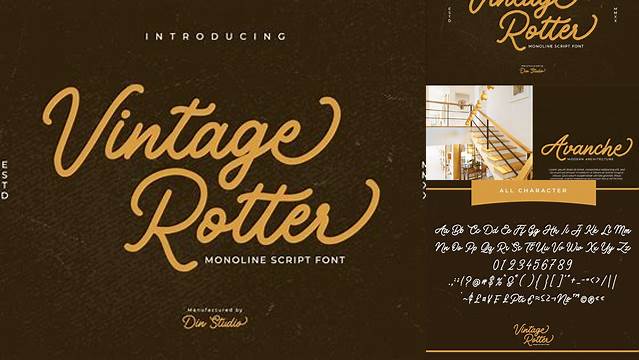
Free Vintage Rotter Font: Download Now!
Hey guys! Are you on the hunt for that perfect vintage font to give your designs a classic, timeless feel? Look no further! We're diving deep into the world of the Free Vintage Rotter Font, exploring everything from its unique characteristics to how you can use it to elevate your projects. This font is a real gem, and we're stoked to share all the details with you. Let's jump right in and discover what makes this font so special and how you can get your hands on it. We'll cover everything from its origins to practical tips for using it in your designs. So, buckle up and get ready to explore the amazing world of vintage typography!
1. What is Free Vintage Rotter Font?
So, what exactly is the Free Vintage Rotter Font? Well, imagine a typeface that perfectly captures the essence of a bygone era, blending classic letterforms with a touch of modern flair. That's Vintage Rotter in a nutshell! This font family exudes character and charm, making it an ideal choice for projects that demand a retro or vintage aesthetic. Whether you're working on branding for a coffee shop, designing a poster for a jazz festival, or crafting a unique logo, Vintage Rotter can add that extra layer of authenticity and visual appeal. The beauty of this font lies in its versatility – it works equally well for headlines and body text, offering a cohesive and polished look. But beyond its aesthetic appeal, understanding its historical context and design inspirations can truly unlock its potential. This font isn’t just about looking old; it's about telling a story. The curves, the serifs, the overall weight – everything contributes to a narrative that resonates with viewers. Think about the feeling you want to evoke, and then consider how Vintage Rotter can help you achieve that. From the bold strokes to the delicate details, every aspect of this font has been carefully crafted to create a typeface that is both visually stunning and highly functional. So, let’s explore some of the key characteristics that make Vintage Rotter stand out from the crowd.
2. Key Characteristics of Vintage Rotter
The charm of the Free Vintage Rotter Font lies in its distinct characteristics, which set it apart from other typefaces. Think of it as the unique personality that makes this font so memorable. One of the first things you'll notice is its strong, bold strokes, giving it a sense of authority and presence. This makes it ideal for headlines and titles that need to grab attention. At the same time, it incorporates elegant curves and serifs that add a touch of sophistication and refinement. This blend of strength and elegance is what gives Vintage Rotter its distinctive character. The letterforms are carefully crafted, with a consistent weight and spacing that ensures readability, even at smaller sizes. This is crucial for body text, where clarity is paramount. The font also boasts a wide range of glyphs, including alternates and ligatures, allowing you to create unique and customized typography. This versatility means you can use Vintage Rotter in a variety of contexts, from print to digital, without sacrificing its aesthetic appeal. The attention to detail is evident in every character, from the uppercase letters to the lowercase, and even the numerals and punctuation marks. This level of craftsmanship is what elevates Vintage Rotter from a simple font to a true work of art. By understanding these key characteristics, you can better appreciate the nuances of the font and use it effectively in your design projects.
4. Creative Uses for Vintage Rotter in Design
Now for the fun part! Let's talk about the creative ways you can use the Free Vintage Rotter Font in your design projects. This font is incredibly versatile, lending itself to a wide range of applications. Think branding, web design, print materials, and more. For branding, Vintage Rotter can add a touch of classic elegance to logos, business cards, and packaging. Imagine a coffee shop with a vintage-inspired logo featuring this font – it instantly conveys a sense of tradition and quality. In web design, you can use Vintage Rotter for headings, subheadings, and even body text (though it's best to use it sparingly for longer paragraphs). It's perfect for creating a retro-themed website or adding a vintage touch to a modern design. Print materials are another area where Vintage Rotter shines. Think posters, flyers, brochures, and invitations. It's particularly well-suited for designs that evoke a sense of nostalgia or history. For example, it would be perfect for a vintage travel poster or an invitation to a Gatsby-themed party. The key to using Vintage Rotter effectively is to consider the overall aesthetic you're trying to achieve. It pairs well with other vintage elements, such as distressed textures, muted colors, and classic illustrations. But it can also be used in unexpected ways to create a unique and contemporary look. Don't be afraid to experiment and see what works best for your project. And if you're feeling stuck, let’s dive deeper into specific examples of how Vintage Rotter can enhance various design projects.
5. Vintage Rotter for Logo Design
When it comes to logo design, the Free Vintage Rotter Font can be a game-changer. A logo is the face of a brand, and choosing the right typeface is crucial for conveying the brand's personality and values. Vintage Rotter's classic yet distinctive style makes it an excellent choice for businesses that want to project a sense of history, tradition, or craftsmanship. Imagine a logo for a vintage clothing store, a barbershop, or a distillery – Vintage Rotter would be right at home. Its bold strokes and elegant serifs command attention, while its overall character adds a touch of sophistication. The font's versatility also allows for creative customization. You can adjust the letter spacing, size, and color to achieve the desired effect. You can also combine it with other graphic elements, such as icons or illustrations, to create a unique and memorable logo. One tip for using Vintage Rotter in logo design is to consider the font's weight. The regular weight is ideal for a balanced and classic look, while the bold weight can add emphasis and impact. The italic version can also be used to create a more elegant and flowing feel. Another important factor is legibility. Make sure the logo is easy to read, even at smaller sizes. This is especially important for digital applications, where the logo may be displayed on a variety of devices and screens. By carefully considering these factors, you can harness the power of Vintage Rotter to create a logo that truly represents your brand. But how does Vintage Rotter stack up against other vintage fonts? Let’s compare.
6. Comparing Vintage Rotter with Other Vintage Fonts
Okay, so the Free Vintage Rotter Font is pretty awesome, but how does it compare to other vintage fonts out there? It's a fair question! The world of vintage typography is vast and diverse, with countless typefaces vying for your attention. Understanding the nuances of different fonts can help you make the best choice for your project. Vintage fonts can range from elegant and refined to bold and rustic, each with its own unique character and history. Some popular vintage fonts include Bebas Neue, Playfair Display, and Montserrat, each offering a different aesthetic. When comparing Vintage Rotter with these fonts, several key differences emerge. Vintage Rotter stands out for its strong, bold strokes and elegant serifs, giving it a commanding yet sophisticated presence. Bebas Neue, on the other hand, is a sans-serif font with a more modern and minimalist feel. Playfair Display is a classic serif font known for its high contrast and delicate letterforms. Montserrat is a geometric sans-serif font that balances modernity with vintage charm. The best font for your project will depend on the specific aesthetic you're trying to achieve. If you're looking for a font that exudes classic elegance and strength, Vintage Rotter is an excellent choice. If you prefer a more modern or minimalist look, Bebas Neue or Montserrat might be better options. Playfair Display is ideal for projects that require a touch of sophistication and refinement. Ultimately, the best way to choose a font is to experiment and see what works best for your design. And speaking of experimenting, let’s explore some font pairings that work well with Vintage Rotter.
7. Font Pairings with Vintage Rotter
One of the secrets to great typography is choosing the right font pairings. The Free Vintage Rotter Font is a strong and distinctive typeface, so pairing it with complementary fonts can create a harmonious and visually appealing design. The goal is to find fonts that balance Vintage Rotter's bold personality without overpowering it. A classic approach is to pair Vintage Rotter with a clean and simple sans-serif font. This creates a contrast that is both visually interesting and highly readable. Think of pairing Vintage Rotter for headings with a font like Open Sans or Lato for body text. This combination offers a balance between vintage charm and modern clarity. Another option is to pair Vintage Rotter with a more delicate serif font. This can create a sense of elegance and sophistication. For example, pairing Vintage Rotter with a font like Garamond or Times New Roman can be a great choice for formal designs. When choosing font pairings, it's important to consider the overall tone and style of your project. If you're aiming for a vintage look, pairing Vintage Rotter with other vintage-inspired fonts can work well. However, it's important to avoid using too many decorative fonts, as this can make your design look cluttered and overwhelming. A good rule of thumb is to stick to two or three fonts in total. Experiment with different combinations and see what resonates with you. Ultimately, the best font pairing is the one that enhances your design and communicates your message effectively. But how do you actually install Vintage Rotter on your computer? Let's find out.
9. Common Mistakes to Avoid When Using Vintage Fonts
Vintage fonts, like the Free Vintage Rotter Font, can add a ton of character and charm to your designs, but they can also be tricky to use effectively. There are some common pitfalls to watch out for to ensure your designs look polished and professional. One of the biggest mistakes is overusing vintage fonts. While they're great for adding a touch of nostalgia, using too many vintage fonts in a single design can create a cluttered and overwhelming look. It's usually best to stick to one or two vintage fonts and pair them with simpler, more modern typefaces. Another common mistake is using vintage fonts in inappropriate contexts. Vintage fonts are not suitable for every project. They work well for designs that evoke a sense of history or tradition, but they may not be the best choice for modern or minimalist designs. It's important to consider the overall tone and style of your project and choose fonts that align with that aesthetic. Legibility is another crucial factor. Some vintage fonts can be difficult to read, especially at smaller sizes. Make sure your text is clear and legible, even if it means choosing a simpler font or adjusting the font size and spacing. Kerning and tracking are also important. Vintage fonts often have unique letterforms and spacing, so it's essential to adjust the kerning and tracking to ensure the text looks balanced and harmonious. And of course, always double-check the font's license before using it in a commercial project. Now that you know what mistakes to avoid, let’s explore some real-world examples of Vintage Rotter in action.
10. Real-World Examples of Vintage Rotter in Action
To truly appreciate the power of the Free Vintage Rotter Font, let's take a look at some real-world examples of how it's being used in design. Seeing the font in context can inspire you and give you a better understanding of its potential. One common application is in branding for businesses that want to project a vintage or handcrafted feel. Think coffee shops, breweries, barbershops, and artisan goods stores. Vintage Rotter can add a touch of classic elegance to logos, packaging, and marketing materials. Another popular use is in event posters and invitations. Vintage Rotter is perfect for designs that evoke a sense of nostalgia or retro charm. It can be used for posters for jazz festivals, vintage markets, or themed parties. Web design is another area where Vintage Rotter can shine. It can be used for headings, subheadings, and even body text (though sparingly) to create a unique and memorable online experience. Many websites use Vintage Rotter to add a touch of personality and character to their designs. Book covers and album art are also great examples of how Vintage Rotter can be used effectively. Its bold and distinctive style can help a cover stand out on a shelf or in an online store. The key to using Vintage Rotter successfully is to consider the overall design and the message you're trying to convey. It's not just about using a vintage font; it's about using it in a way that enhances the design and communicates your brand's personality. Let’s now consider if Vintage Rotter is the right choice for your project.
11. Is Vintage Rotter the Right Choice for Your Project?
Okay, you've learned a lot about the Free Vintage Rotter Font, but the big question remains: is it the right choice for your project? Choosing the right font is crucial for effective design, and it's important to consider several factors before making a decision. First, think about the overall tone and style of your project. Is it vintage-inspired, modern, elegant, or playful? Vintage Rotter is a strong choice for projects that evoke a sense of history, tradition, or craftsmanship. If you're aiming for a modern or minimalist look, it might not be the best fit. Consider your target audience. Who are you trying to reach with your design? Different fonts appeal to different audiences. Vintage Rotter might be a great choice for targeting a mature audience or those who appreciate classic design. Think about the context in which the font will be used. Will it be used for a logo, a website, a poster, or something else? Vintage Rotter is versatile, but it's not suitable for every application. It works well for headlines and titles, but it might be too decorative for long blocks of body text. Legibility is also a key consideration. Make sure the font is easy to read, especially at smaller sizes. While Vintage Rotter is generally legible, it's important to test it in different contexts to ensure it's clear and readable. Ultimately, the best way to decide if Vintage Rotter is right for your project is to experiment and see how it looks. Try it out in different designs and see if it aligns with your vision. But what if you need to customize Vintage Rotter? Let's explore that next.
12. Customizing Vintage Rotter Font
The Free Vintage Rotter Font is beautiful as it is, but sometimes you might want to tweak it to perfectly match your design. Customizing a font can add a unique touch and help your project stand out. There are several ways to customize Vintage Rotter, from simple adjustments to more complex modifications. One of the easiest ways to customize a font is to adjust the letter spacing, also known as tracking. Increasing the letter spacing can create a more airy and elegant feel, while decreasing it can add a sense of density and impact. Kerning, which is the space between individual letters, is another important adjustment. Fine-tuning the kerning can improve the overall readability and visual harmony of the text. You can also adjust the font size to create different effects. Larger sizes are ideal for headlines and titles, while smaller sizes are better suited for body text. The font color is another crucial element. Experiment with different colors to see what works best with your design. You can also use gradients or textures to add depth and visual interest. For more advanced customization, you can use font editing software like FontForge or Glyphs. These tools allow you to modify the letterforms themselves, adding unique flourishes or altering the overall shape. However, font editing can be complex, so it's best to have some experience with typography before attempting it. Remember, the goal of customization is to enhance the font's character and make it your own, while still maintaining its legibility and overall aesthetic appeal. Now, let’s address some frequently asked questions about Vintage Rotter.
13. Frequently Asked Questions About Vintage Rotter
Got questions about the Free Vintage Rotter Font? You're not alone! Here are some frequently asked questions to help you better understand this fantastic typeface. Is Vintage Rotter free for commercial use? This is a crucial question, and the answer depends on the specific license agreement. Always check the license before using a font in a commercial project to ensure you're complying with the terms. Some fonts are free for personal use only, while others can be used for commercial projects as well. What file format is Vintage Rotter available in? Most fonts, including Vintage Rotter, are available in either .TTF (TrueType Font) or .OTF (OpenType Font) format. Both formats are widely supported, but OTF is generally considered to be the more advanced format, offering better support for ligatures and other typographic features. How do I install Vintage Rotter on my computer? The installation process is usually straightforward. On Windows, right-click the font file and select "Install." On macOS, double-click the font file and click "Install Font" in Font Book. Can I use Vintage Rotter on my website? Yes, you can use Vintage Rotter on your website, but you'll need to use a web font format, such as .WOFF or .WOFF2. You can generate web fonts using online tools or font editing software. What fonts pair well with Vintage Rotter? Vintage Rotter pairs well with clean sans-serif fonts like Open Sans or Lato, as well as more delicate serif fonts like Garamond or Times New Roman. If you have more questions, don’t hesitate to search online or consult a typography expert. Next up, we’ll discuss the history of vintage fonts.
14. The History of Vintage Fonts
To truly appreciate the Free Vintage Rotter Font, it's helpful to understand the history of vintage fonts in general. Vintage fonts aren't just a stylistic choice; they're a connection to the past, each with its own story to tell. The history of typography is long and fascinating, dating back to the invention of movable type in the 15th century. Early typefaces were based on the handwriting styles of the time, and many of these classic designs continue to influence font design today. The 19th and 20th centuries saw a proliferation of new typefaces, driven by advances in printing technology and the rise of advertising. Many of these fonts, such as Art Deco and Art Nouveau styles, are now considered vintage classics. The digital age has brought about a resurgence of interest in vintage fonts. Designers are drawn to their unique character and charm, and they're often used to evoke a sense of nostalgia or authenticity. Vintage fonts can be broadly categorized into several styles, including serif, sans-serif, script, and decorative. Serif fonts, with their small decorative strokes, are often associated with tradition and formality. Sans-serif fonts, which lack serifs, tend to have a more modern and minimalist feel. Script fonts mimic handwriting and can add a touch of elegance or personality. Decorative fonts are more elaborate and are often used for headlines and display purposes. Understanding the history of vintage fonts can help you choose the right typeface for your project and use it effectively. Now, let's explore the technical specifications of Vintage Rotter.
15. Technical Specifications of Vintage Rotter
For the tech-savvy designers out there, let's dive into the technical specifications of the Free Vintage Rotter Font. Understanding these details can help you ensure the font works seamlessly in your projects. Vintage Rotter is typically available in two main file formats: .TTF (TrueType Font) and .OTF (OpenType Font). Both formats are widely supported, but OTF is generally preferred for its advanced features. OTF fonts can contain more glyphs (characters) than TTF fonts, including ligatures, alternates, and other special characters. This gives designers more flexibility and control over their typography. Vintage Rotter usually includes a full character set, including uppercase and lowercase letters, numerals, punctuation marks, and symbols. It may also include ligatures, which are combinations of two or more letters that are designed as a single glyph. Ligatures can add a touch of elegance and sophistication to your typography. The font's weight refers to the thickness of the strokes. Vintage Rotter may be available in different weights, such as regular, bold, and italic. Choosing the right weight is important for ensuring readability and creating visual hierarchy. Kerning and tracking, which we discussed earlier, are also important technical considerations. Vintage Rotter may have specific kerning pairs built in, but you can also adjust the kerning manually in your design software. If you're using Vintage Rotter on the web, you'll need to use a web font format, such as .WOFF or .WOFF2. These formats are optimized for web use and can help improve page loading times. Knowing these technical details allows you to use Vintage Rotter with confidence and precision. Let's now look into the licensing details for Vintage Rotter.
16. Licensing Details for Free Vintage Rotter
One of the most important aspects to consider when using any font, including the Free Vintage Rotter Font, is its licensing. Understanding the licensing terms is crucial to ensure you're using the font legally and ethically. Font licenses dictate how you can use a font, including whether you can use it for personal or commercial projects, and whether you can modify or redistribute it. Some fonts are released under open-source licenses, such as the SIL Open Font License (OFL), which allows for free use, modification, and distribution. Other fonts have more restrictive licenses that limit how they can be used. Before using Vintage Rotter in any project, it's essential to carefully review the license agreement. This will typically be included in a text file within the font's download package. Pay close attention to the terms regarding commercial use, embedding in documents or applications, and modification and redistribution. If the license is unclear or you have specific questions, it's always best to contact the font's designer or distributor for clarification. Using a font without the proper license can have legal and financial consequences, so it's always better to be safe than sorry. Many websites that offer free fonts clearly state the license terms on the download page. Look for terms like "free for personal use" or "free for commercial use." If you're unsure, err on the side of caution and choose a font with a clear and permissive license. Now that we’ve covered licensing, let’s talk about font management tools.
17. Font Management Tools for Vintage Rotter
If you're a designer who works with a lot of fonts, like the Free Vintage Rotter Font, you know how quickly things can get disorganized. Font management tools are essential for keeping your fonts organized, accessible, and performing optimally. These tools help you install, activate, deactivate, and categorize your fonts. They can also help you identify and resolve font conflicts, which can cause problems in your design software. There are several font management tools available, both free and paid. Some popular options include FontBase, NexusFont, and RightFont. These tools offer a range of features, such as font preview, tagging, and search. They can also integrate with your design applications, making it easy to access your fonts directly from within Photoshop, Illustrator, or InDesign. Using a font management tool can save you time and frustration by making it easier to find the fonts you need and prevent font-related issues. For example, you can create collections of fonts for specific projects or clients. You can also tag fonts with keywords to make them easier to search. If you're using Vintage Rotter in multiple projects, a font management tool can help you ensure that it's always available when you need it. Some font management tools also offer features for cleaning up your font library, such as identifying and removing duplicate fonts. This can help improve your system's performance and prevent font conflicts. With a good font management system in place, you'll be able to focus on your creativity, not your fonts. Next, let's discuss the best software to use with Vintage Rotter.
18. Best Software to Use with Vintage Rotter
The Free Vintage Rotter Font is a versatile typeface, but to truly unleash its potential, you need the right software. The software you use can significantly impact how you work with fonts and the final look of your designs. For professional graphic design, Adobe Creative Suite is the industry standard. Programs like Photoshop, Illustrator, and InDesign offer robust font handling capabilities and a wide range of typographic controls. In Illustrator, you can easily adjust kerning, tracking, and leading, as well as create outlines from text for custom modifications. Photoshop is great for incorporating Vintage Rotter into raster-based designs, such as posters and photo manipulations. InDesign is the go-to choice for layout design, allowing you to create multi-page documents with consistent typography. If you're on a budget, there are also some excellent free and open-source alternatives. GIMP is a powerful image editing program that can handle Vintage Rotter effectively. Inkscape is a vector graphics editor that is similar to Illustrator and offers good font support. Scribus is a desktop publishing application that can be used as an alternative to InDesign. For web design, you'll need software that supports web fonts. Most modern web design tools, such as Adobe XD, Figma, and Sketch, allow you to use custom fonts, including Vintage Rotter. You can also use CSS to specify the font for your website. The best software for you will depend on your specific needs and budget. But with the right tools, you can bring your typographic visions to life with Vintage Rotter. Let's explore how Vintage Rotter can be used in branding next.
19. Using Vintage Rotter for Branding
Branding is all about creating a unique and memorable identity, and the Free Vintage Rotter Font can be a powerful tool in achieving that. Choosing the right font for your brand is crucial, as it can convey your brand's personality, values, and overall message. Vintage Rotter, with its classic and elegant style, is a great choice for brands that want to project a sense of history, tradition, or craftsmanship. It works particularly well for businesses in industries like food and beverage, fashion, and hospitality. Imagine a logo for a vintage-inspired coffee shop using Vintage Rotter – it instantly conveys a sense of warmth and authenticity. Or a fashion brand that wants to evoke a sense of timeless style could use Vintage Rotter for its logo and marketing materials. When using Vintage Rotter for branding, it's important to consider the font's weight, size, and color. The font weight can affect the perceived strength and stability of the brand. A bold weight can convey confidence, while a lighter weight can suggest elegance and refinement. The font size should be chosen carefully to ensure legibility and visual impact. The font color should align with the brand's overall color palette and evoke the desired emotions. It’s also important to maintain consistency across all branding materials. Using Vintage Rotter consistently in your logo, website, packaging, and marketing materials will help reinforce your brand identity. Keep in mind that branding is more than just a font choice. It's about creating a cohesive and compelling story that resonates with your target audience. But Vintage Rotter can be a valuable asset in telling that story. We’ll now explore how this font can be used for web design.
20. Vintage Rotter in Web Design
In the world of web design, typography plays a vital role in user experience and visual appeal. The Free Vintage Rotter Font can add a touch of character and sophistication to your website, but it's important to use it strategically. Vintage fonts can create a unique and memorable online experience, but they should be used judiciously to ensure readability and maintain a modern feel. Vintage Rotter is well-suited for headings and subheadings, where its distinctive style can grab attention. It can also be used for shorter blocks of text, such as call-to-actions or testimonials. However, using Vintage Rotter for long paragraphs of body text can be tiring for the eyes. It's best to pair it with a cleaner, more legible font for body copy. When using Vintage Rotter on the web, you'll need to use a web font format, such as .WOFF or .WOFF2. These formats are optimized for web use and can help improve page loading times. You can use CSS to specify the font for different elements on your website. It's important to test the font on different devices and browsers to ensure it renders correctly. Consider the contrast between the text and background colors. Ensure there is sufficient contrast to make the text easy to read. You can also use CSS to control the letter spacing, line height, and other typographic properties. Remember, the goal is to create a website that is both visually appealing and user-friendly. Vintage Rotter can be a valuable asset in achieving that goal, but it should be used in a way that enhances the overall design and user experience. Let's move on to how Vintage Rotter can be used in print design.
21. Vintage Rotter in Print Design
While digital design is booming, print design still holds a special place, and the Free Vintage Rotter Font can truly shine in printed materials. From posters to brochures to business cards, Vintage Rotter can add a touch of elegance and timelessness to your print projects. In print design, typography is even more critical as it directly impacts the physical reading experience. Vintage Rotter, with its distinctive character, can make your printed materials stand out. It is particularly effective in projects where you want to convey a sense of history, craftsmanship, or classic style. For posters and flyers, Vintage Rotter can be used for headlines, titles, and other prominent text elements. Its bold and elegant style commands attention and creates a visual impact. For brochures and booklets, Vintage Rotter can be used for headings and subheadings, as well as for captions and call-outs. Pairing it with a cleaner font for body text can ensure readability and a balanced aesthetic. Business cards are another area where Vintage Rotter can make a statement. Using it for your name, title, or company name can add a touch of sophistication and memorability. When using Vintage Rotter in print design, it's essential to consider the paper stock, printing method, and ink colors. A high-quality paper stock can enhance the font's appearance, while the right printing method can ensure sharpness and clarity. The ink colors should complement the font and the overall design. Whether you’re creating invitations, menus, or packaging, Vintage Rotter can bring a unique and classic touch to your print projects. Now, let’s dive into using Vintage Rotter in packaging design.
22. Using Vintage Rotter in Packaging Design
Packaging is a crucial aspect of branding and marketing, and the Free Vintage Rotter Font can be a game-changer in creating visually appealing and memorable packaging designs. The right typography on your packaging can attract attention, communicate your brand message, and influence purchasing decisions. Vintage Rotter, with its classic and elegant style, is an excellent choice for brands that want to convey a sense of quality, tradition, or craftsmanship. It is particularly well-suited for products in industries like food and beverage, cosmetics, and artisanal goods. Imagine a bottle of craft beer with a label featuring Vintage Rotter – it instantly suggests a high-quality, handcrafted product. Or a box of artisanal chocolates with Vintage Rotter on the packaging conveys a sense of luxury and indulgence. When using Vintage Rotter in packaging design, it’s crucial to consider the size and shape of the packaging, as well as the materials used. The font should be legible and visually appealing on the chosen packaging. Think about the layout and hierarchy of the text. Use Vintage Rotter for key elements like the product name or brand name, and pair it with a cleaner font for other information. The colors and textures used in the packaging should complement the font and reinforce the brand's identity. Vintage Rotter can add a touch of sophistication and uniqueness to your product packaging, helping it stand out on the shelf and appeal to your target audience. We’ll now explore using Vintage Rotter for event invitations and posters.
23. Vintage Rotter for Event Invitations and Posters
When it comes to event invitations and posters, making a strong visual impression is key, and the Free Vintage Rotter Font can be your secret weapon. Whether it's a wedding invitation, a concert poster, or a vintage-themed party, the right typography can set the tone and create anticipation. Vintage Rotter, with its classic and elegant style, is perfect for events that evoke a sense of nostalgia, sophistication, or timelessness. It can add a touch of old-world charm to your invitations and posters, making them stand out and capturing attention. For wedding invitations, Vintage Rotter can be used for the names of the bride and groom, the date, and other key details. It adds a touch of romance and elegance to the design. For concert posters, Vintage Rotter can be used for the band name, the venue, and the date. Its bold and distinctive style commands attention and creates a memorable visual. For vintage-themed parties, Vintage Rotter can be used for the event title and other information. It perfectly complements the retro vibe and creates a cohesive design. When using Vintage Rotter for event invitations and posters, consider the overall design aesthetic and the message you want to convey. The font should align with the event's theme and create the desired mood. Use Vintage Rotter strategically to highlight key information and create visual hierarchy. Paired with appropriate colors, imagery, and layout, Vintage Rotter can transform your event invitations and posters into stunning works of art. Now, let's discuss using Vintage Rotter for book covers and album art.
24. Vintage Rotter for Book Covers and Album Art
In the world of books and music, the cover is often the first thing that catches a potential buyer's eye, and the Free Vintage Rotter Font can be a powerful tool in creating compelling book covers and album art. The right typography can convey the genre, mood, and overall message of the work, influencing purchasing decisions. Vintage Rotter, with its classic and elegant style, is a great choice for books and albums that evoke a sense of history, tradition, or timelessness. It adds a touch of sophistication and character to the cover design. For book covers, Vintage Rotter can be used for the title, author's name, and other key information. Its bold and distinctive style helps the cover stand out on a shelf or in an online store. The font can create the vibe of historical fiction, classic literature, or vintage-inspired genres. For album art, Vintage Rotter can be used for the band name, album title, and other text elements. It can capture the essence of various musical genres, including jazz, blues, rockabilly, and folk. When using Vintage Rotter for book covers and album art, it’s important to consider the overall design aesthetic and the target audience. The font should align with the work's genre and create the desired mood. It is essential to create visual hierarchy and enhance the overall impact of the cover design. Combined with appropriate imagery, colors, and layout, Vintage Rotter can help create captivating book covers and album art that grab attention and entice the audience. Let's move on to how Vintage Rotter works for restaurant menus and signage.
25. Vintage Rotter for Restaurant Menus and Signage
Creating the right ambiance is crucial for restaurants, and the typography on menus and signage plays a significant role. The Free Vintage Rotter Font can be an excellent choice for establishments aiming for a classic, sophisticated, or vintage feel. The right font can communicate the restaurant’s style, price point, and overall dining experience. Vintage Rotter, with its elegant and timeless design, is perfect for restaurants that want to evoke a sense of quality, tradition, or old-world charm. It can add a touch of sophistication to menus, signage, and other branding materials. For restaurant menus, Vintage Rotter can be used for headings, dish names, and descriptions. Its distinctive style makes the menu items stand out, while its elegance enhances the dining experience. For signage, Vintage Rotter can be used for the restaurant name, hours of operation, and other key information. It creates a memorable visual identity that aligns with the restaurant’s overall ambiance. When using Vintage Rotter for restaurant menus and signage, consider the legibility and readability of the font. Ensure the font size is appropriate for the viewing distance and the lighting conditions. Also, think about the overall design aesthetic and how the font complements the other elements. Vintage Rotter, paired with the right colors, textures, and layout, can help create an inviting and memorable dining atmosphere. We’ll now discuss how you can use Vintage Rotter to add a vintage touch to your photos.
26. Adding a Vintage Touch to Photos with Vintage Rotter
Photos can tell stories, and adding the Free Vintage Rotter Font can enhance the narrative, giving your images a timeless, nostalgic feel. Whether you're creating a retro-themed photo album, designing a vintage-inspired social media post, or crafting a classic poster, Vintage Rotter can add the perfect finishing touch. Typography plays a vital role in setting the mood and conveying the message of a photo. Vintage Rotter, with its classic and elegant style, is ideal for photos that evoke a sense of history, tradition, or romance. It can transform ordinary images into captivating works of art. When adding text to photos with Vintage Rotter, consider the composition, color palette, and overall aesthetic of the image. The font should complement the photo and enhance its visual appeal. Use Vintage Rotter strategically to highlight key elements or add context to the image. Experiment with different font sizes, weights, and colors to achieve the desired effect. Think about the placement of the text within the photo. Try adding a subtle drop shadow or other effects to make the text stand out without overpowering the image. Consider using Vintage Rotter for captions, quotes, or titles to add a personal touch to your photos. This font is particularly well-suited for black and white photos, sepia-toned images, or photos with a vintage filter. Whether it’s for personal use or professional projects, Vintage Rotter can help you create photos that tell compelling stories and capture the essence of a bygone era. Let’s explore how to create stunning visual quotes with Vintage Rotter.
27. Creating Stunning Visual Quotes with Vintage Rotter
Visual quotes are a powerful way to share inspiration and wisdom, and the Free Vintage Rotter Font can help you create stunning designs that capture attention and resonate with your audience. Whether you’re posting on social media, designing a greeting card, or creating wall art, the right typography can transform a simple quote into a memorable visual masterpiece. Typography is key to conveying the tone and message of a quote. Vintage Rotter, with its elegant and timeless style, is perfect for quotes that evoke a sense of history, tradition, or sophistication. It adds a touch of class and character to the design. When creating visual quotes with Vintage Rotter, consider the layout, color palette, and imagery. The font should complement the quote and enhance its impact. Think about the visual hierarchy and how the different elements work together. Use Vintage Rotter for the key words or phrases in the quote to make them stand out. Experiment with different font sizes, weights, and colors to create visual interest and emphasis. Choose a background image or texture that complements the quote and the font. Think about adding decorative elements, such as flourishes or borders, to enhance the design. Consider posting visual quotes on social media platforms such as Instagram, Pinterest, and Facebook. Remember, the goal is to create visual quotes that not only look beautiful but also convey a meaningful message. Let's discuss how to combine Vintage Rotter with other design elements.
28. Combining Vintage Rotter with Other Design Elements
The Free Vintage Rotter Font is a fantastic typeface on its own, but combining it effectively with other design elements can truly elevate your projects. From colors and imagery to textures and layouts, the right combinations can create a cohesive and visually stunning design. The key is to strike a balance and ensure that all elements work together harmoniously. Colors play a crucial role in setting the mood and conveying the message of your design. Vintage Rotter pairs well with a variety of color palettes, from muted and earthy tones to rich and vibrant hues. Consider the overall aesthetic you want to achieve and choose colors that complement the font and the design concept. Imagery, such as photos and illustrations, can add visual interest and tell a story. When combining Vintage Rotter with images, make sure the typography doesn't clash with the visuals. The font should enhance the imagery, not compete with it. Textures can add depth and dimension to your design. Vintage textures, such as distressed paper or aged wood, pair beautifully with Vintage Rotter, reinforcing the classic vibe. Layout is also a critical consideration. A well-organized layout can make your design easy to read and visually appealing. Use Vintage Rotter strategically for headlines and key elements, and pair it with a cleaner font for body text. You can also use negative space to create visual breathing room and enhance the overall impact. Remember, the goal is to create a design that is both visually appealing and effective in communicating your message. Let’s explore some design trends that complement Vintage Rotter.
29. Design Trends That Complement Vintage Rotter
To keep your designs fresh and engaging, it's essential to stay updated on the latest trends. The Free Vintage Rotter Font can be incorporated into several current design trends, allowing you to create modern yet timeless visuals. One popular trend is the use of vintage and retro styles. Vintage Rotter naturally fits into this aesthetic, adding an authentic touch to designs that evoke a sense of nostalgia. Combine it with aged textures, muted colors, and classic illustrations to create a cohesive retro look. Another trend is the use of handcrafted and artisanal elements. Vintage Rotter's elegant and timeless style pairs perfectly with hand-drawn illustrations, watercolor textures, and other handmade details. This combination creates a sense of warmth and authenticity. Minimalism is another design trend that can be combined with Vintage Rotter. While Vintage Rotter is not a minimalist font, it can be used strategically in minimalist designs to add a touch of personality and contrast. Use it sparingly for headlines or key elements and pair it with a clean, sans-serif font for body text. The use of bold and impactful typography is also trending. Vintage Rotter, with its strong and distinctive style, can be a great choice for creating bold typographic designs. Consider using it in large sizes for headlines or posters to create a visual impact. Exploring these design trends can inspire you to use Vintage Rotter in new and creative ways. Finally, let’s discuss the future of vintage fonts in design.
30. The Future of Vintage Fonts in Design
Vintage fonts, like the Free Vintage Rotter Font, have seen a resurgence in popularity, and their future in design looks bright. As designers continue to seek ways to create unique and memorable visuals, vintage typefaces offer a timeless appeal that transcends trends. The digital age has made it easier than ever to access and use vintage fonts, contributing to their continued popularity. Online font libraries and marketplaces offer a vast selection of vintage typefaces, allowing designers to find the perfect font for their project. The growing interest in retro and nostalgic design styles has also fueled the demand for vintage fonts. Many businesses and brands are looking to evoke a sense of history and tradition, and vintage fonts are an effective way to achieve that. While vintage fonts have a classic appeal, they can also be used in innovative and contemporary ways. Designers are experimenting with combining vintage fonts with modern design elements, creating unique and visually striking compositions. The future of vintage fonts in design will likely involve a blend of classic and contemporary styles. We can expect to see designers continuing to use vintage typefaces in creative and unexpected ways, pushing the boundaries of typography and visual communication. Whether you're a seasoned designer or just starting out, exploring the world of vintage fonts can open up a world of creative possibilities. So go ahead, download Vintage Rotter, and start experimenting with its timeless charm!